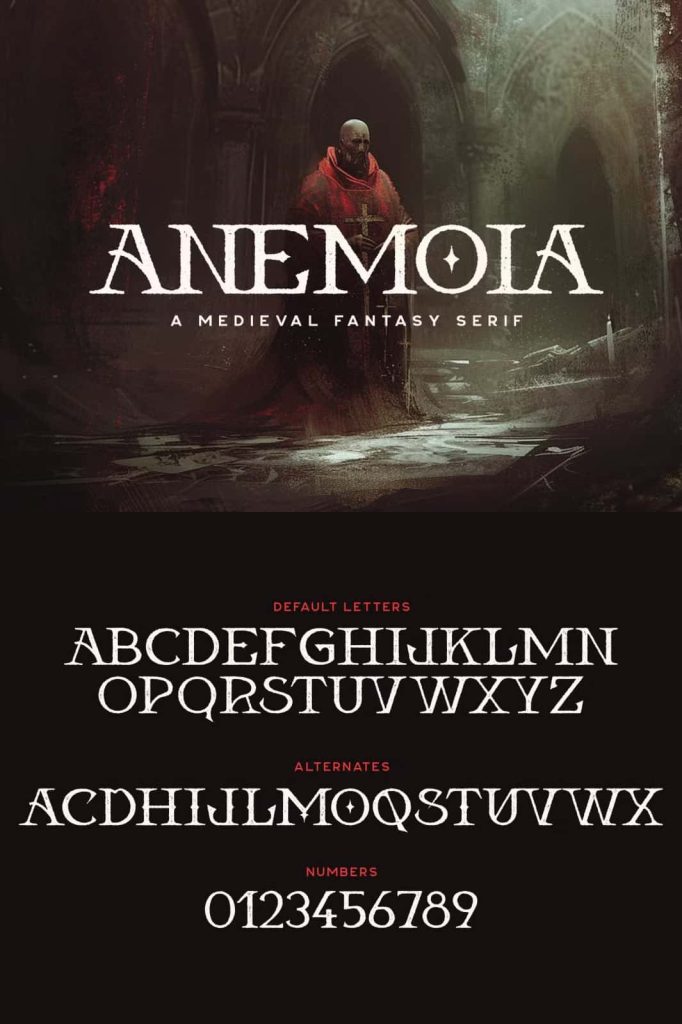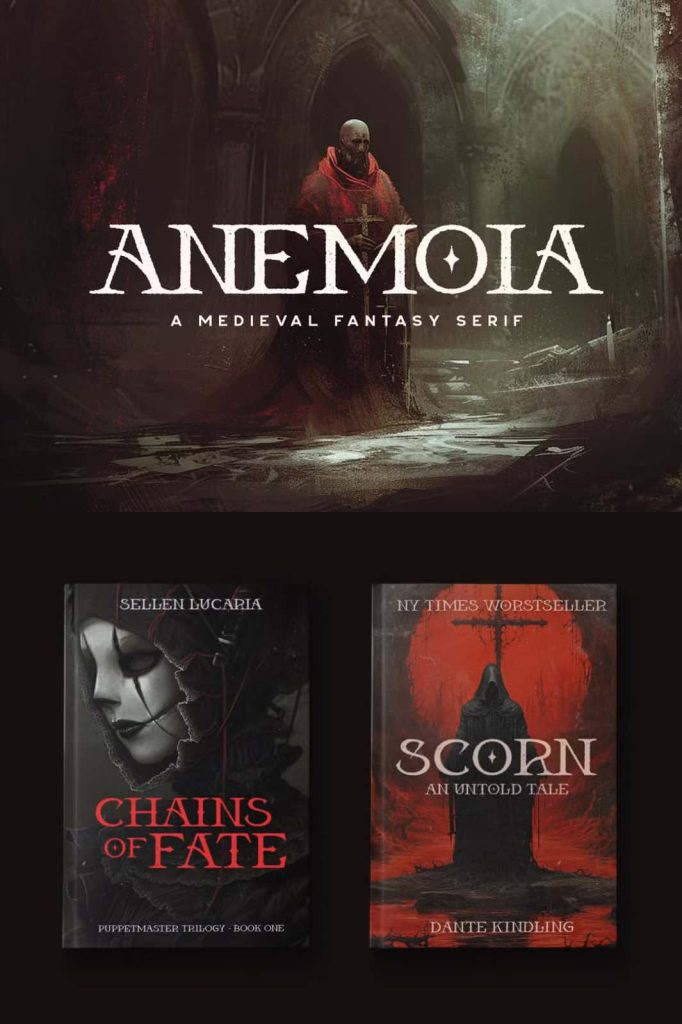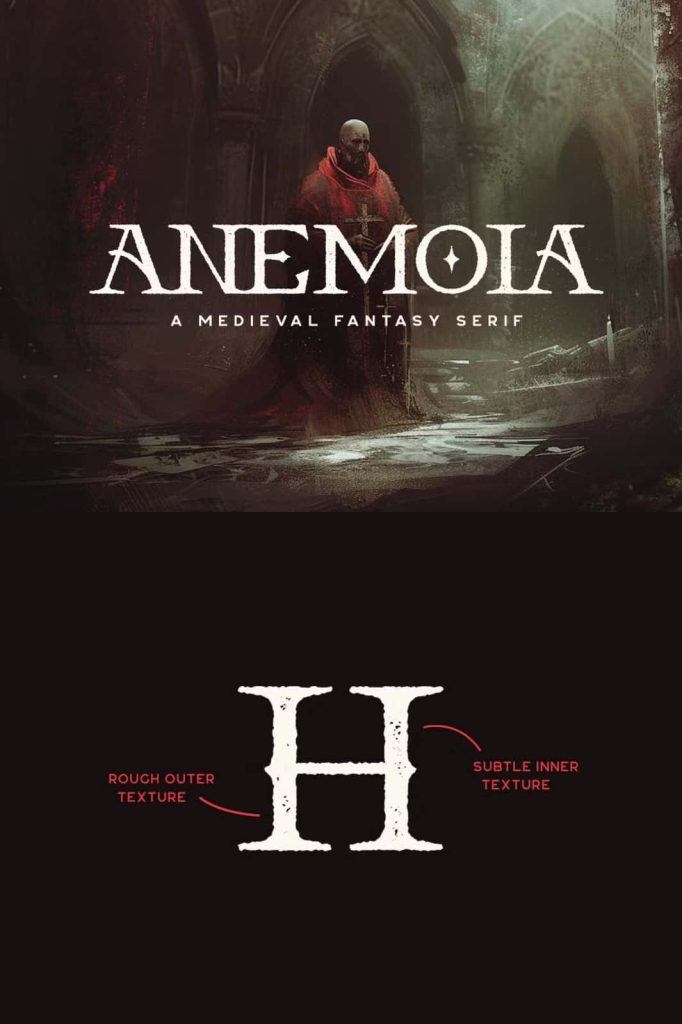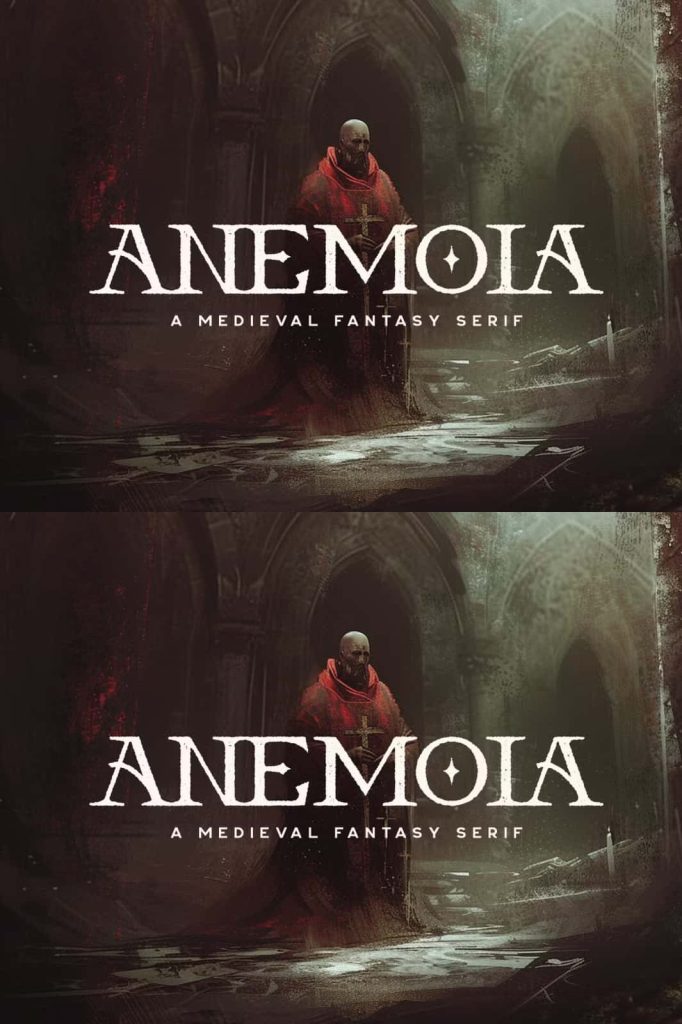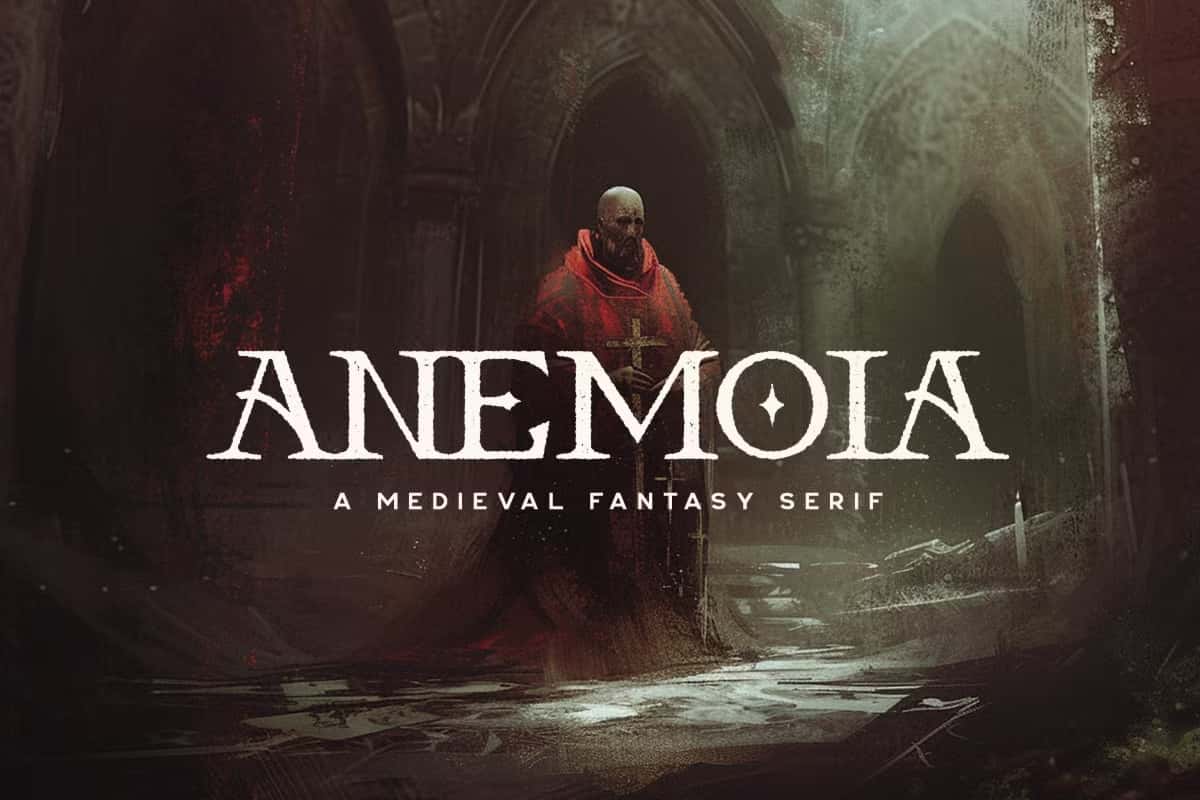
Anemoia TypefacedezzignerMay 28, 2025Fonts Anemoia is a fantasy serif font with a bunch of alternate letters that can be toggled via Caps Lock. Download